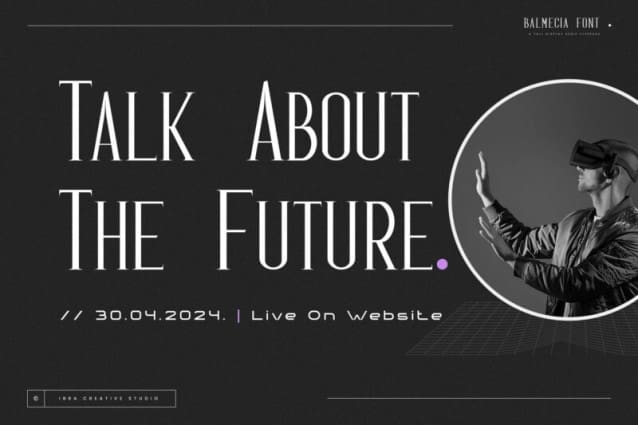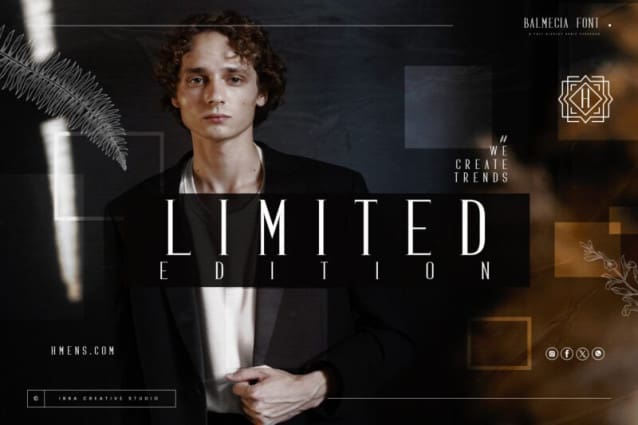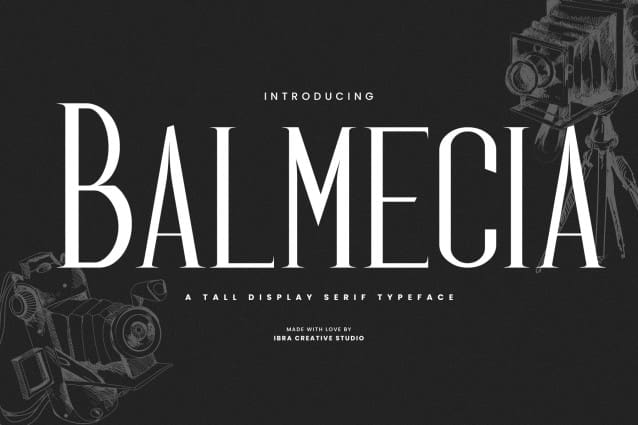
Balmecia Font
Balmecia Font is a distinguished tall display serif typeface that exudes a timeless elegance and sophistication. With its tall and slender letterforms, Balmecia commands attention and lends a touch of grace to any design it graces. The carefully crafted serifs add a classic flair, while the generous letter spacing ensures optimal legibility even in larger sizes. Balmecia’s vertical proportions create a sense of stateliness, making it an ideal choice for headings, titles, and other display applications where a touch of refinement is desired. This typeface seamlessly blends tradition with a modern aesthetic, offering a unique personality that captures the essence of both vintage and contemporary design sensibilities.
Balmecia Font is perfect for branding projects, logo, wedding designs, social media posts, advertisements, product packaging, product designs, label, photography, watermark, invitation, stationery, game, fashion and any projects.